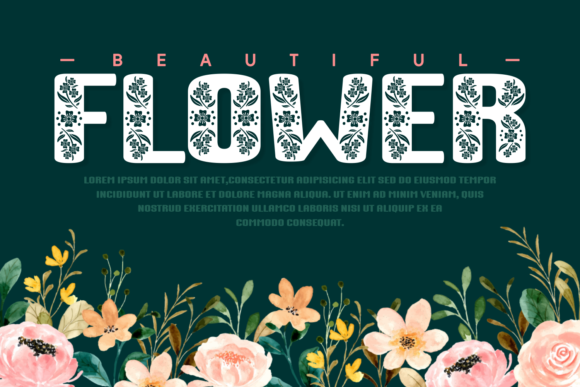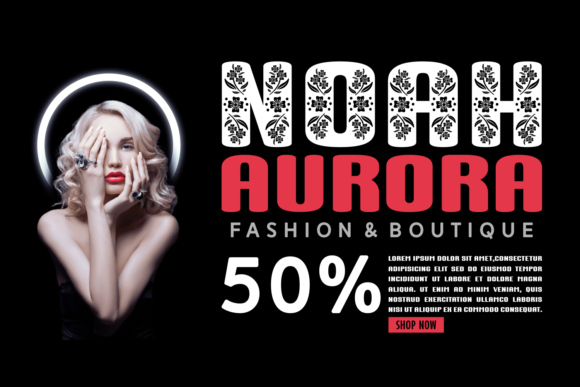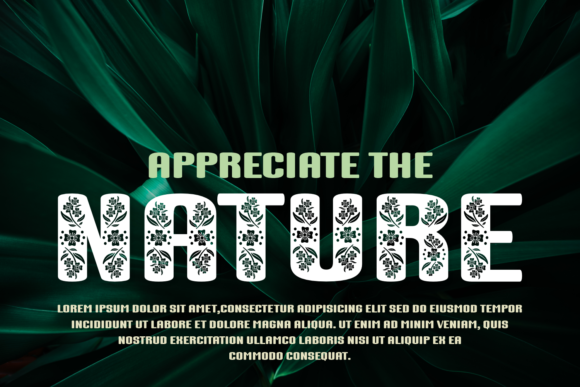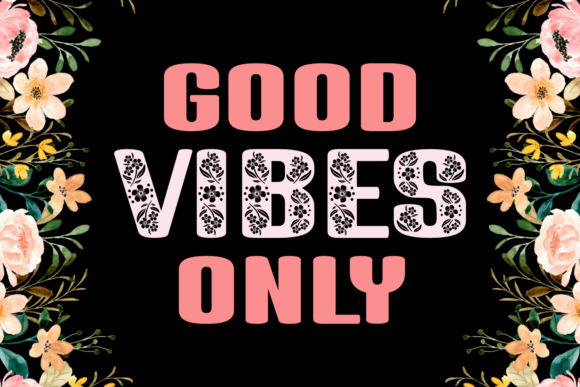
Boga Font: Bringing Nature’s Beauty to Your Designs
Are you looking for a font that can add a touch of nature to your projects? Look no further than Boga Font, a stunning floral decorative font that’s perfect for designers and crafters alike. In this article, we’ll dive into the world of Boga Font, exploring its features, uses, and benefits, and why it’s a must-have for anyone looking to add a touch of elegance to their designs.
What is Boga Font?
Boga Font is a beautiful floral decorative font that’s inspired by the natural world. Its intricate and delicate design makes it perfect for adding a touch of whimsy and elegance to any project. Whether you’re working on a logo, poster, or social media graphic, Boga Font is sure to make your design stand out.
Features of Boga Font
So, what makes Boga Font so special? Here are just a few of its key features:
- Floral Design: Boga Font features a stunning floral design that’s perfect for adding a touch of nature to your projects.
- Decorative: This font is highly decorative, making it perfect for use in headers, logos, posters, and other eye-catching designs.
- Elegant: Boga Font has an elegant and sophisticated feel that’s perfect for designs that require a touch of luxury.
- Versatile: This font is highly versatile, making it suitable for use in a wide range of projects, from digital designs to print materials.
Uses of Boga Font
So, what can you use Boga Font for? The possibilities are endless! Here are just a few ideas to get you started:
- Logos: Boga Font is perfect for creating stunning logos that require a touch of elegance and sophistication.
- Posters: This font is ideal for use in posters, flyers, and other promotional materials that require a bold and eye-catching design.
- Headers: Boga Font is perfect for use in headers, titles, and other typography that requires a decorative touch.
- Social Media Graphics: This font is great for use in social media graphics, including Instagram posts, Facebook graphics, and more.
Benefits of Using Boga Font
So, why should you choose Boga Font for your next project? Here are just a few benefits of using this stunning font:
- Adds a Touch of Nature: Boga Font adds a touch of nature to your designs, making them perfect for projects that require a organic feel.
- Increases Visual Appeal: This font is highly decorative, making it perfect for designs that require a bold and eye-catching typography.
- Versatile: Boga Font is highly versatile, making it suitable for use in a wide range of projects and designs.
- Elegant: This font has an elegant and sophisticated feel that’s perfect for designs that require a touch of luxury.
Tips for Using Boga Font
Here are a few tips for using Boga Font in your designs:
- Use it Sparingly: Boga Font is highly decorative, so use it sparingly to avoid overwhelming your design.
- Pair it with Other Fonts: This font pairs well with other fonts, so experiment with different combinations to find the perfect look for your design.
- Experiment with Colors: Boga Font looks great in a range of colors, so experiment with different hues and shades to find the perfect look for your design.
| Font Name | Boga Font |
| Author | Jasa (7NTypes) |
In conclusion, Boga Font is a stunning floral decorative font that’s perfect for designers and crafters alike. Its intricate and delicate design makes it perfect for adding a touch of nature to your projects, while its elegant and sophisticated feel makes it ideal for designs that require a touch of luxury. With its versatility and visual appeal, Boga Font is a must-have for anyone looking to add a touch of elegance to their designs.